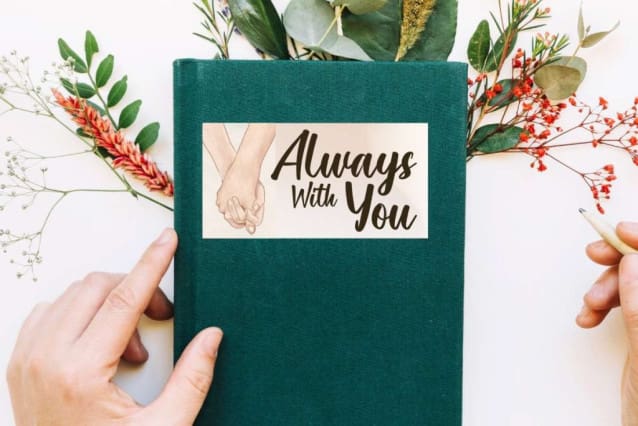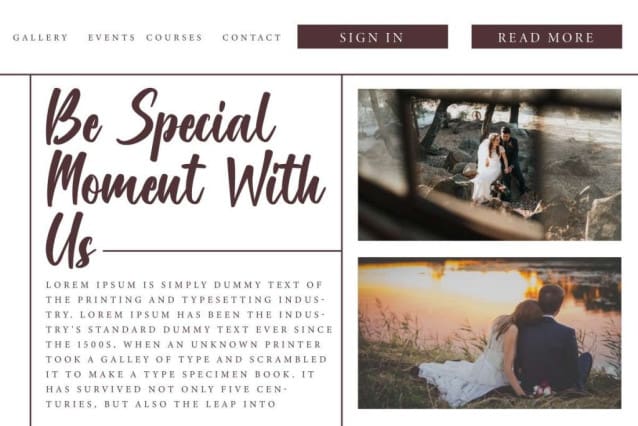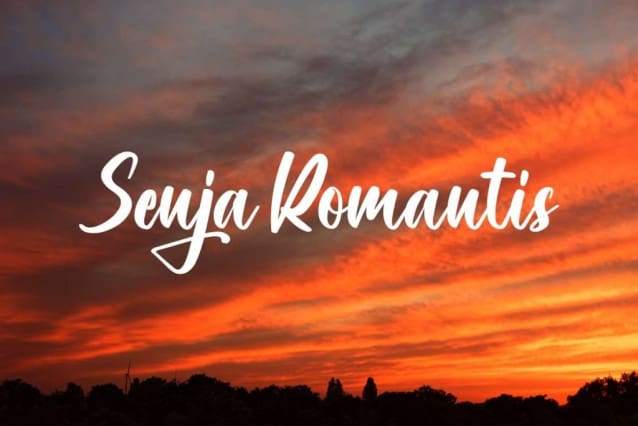
Senja Romantis Font
Senja Romantis Font is a romantic charming calligraphy script font with a casual retro look. Carefully crafted typography provides a neat look that will enhance your design, such as billboard, blog, brand logo, brochure, cover, header, invitation, label, poster, product packaging, quote, screen print, stationery, sticker, title, watermark, website, and many more!
Senja Romantis Font comes with a full set of Uppercase and Lowercase Basic Characters, Number, Punctuation, Symbol, Alternate, and Ligature. Flawless typography will make any appearance feel elegant in your business industry, such as, artist, bridal boutique, clothing brand, cosmetic, craft, event organizer, film, florist, furniture, gardener, graphic design, homeware, photography, printing, publishing, restaurant, skincare, spa salon, wedding, writer, etc.